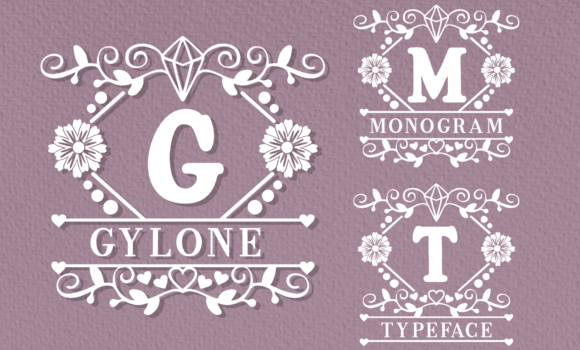
Gylone Font – Free Download Introduction to Gylone Font Gylone is a distinct and versatile decorative font. 📸 Preview Gallery 4 images 📌 Product Name Gylone Font 👤 Author Dreamink (7ntypes) 📂 Category Explore ⬇️ Download Gylone Font FREE Free